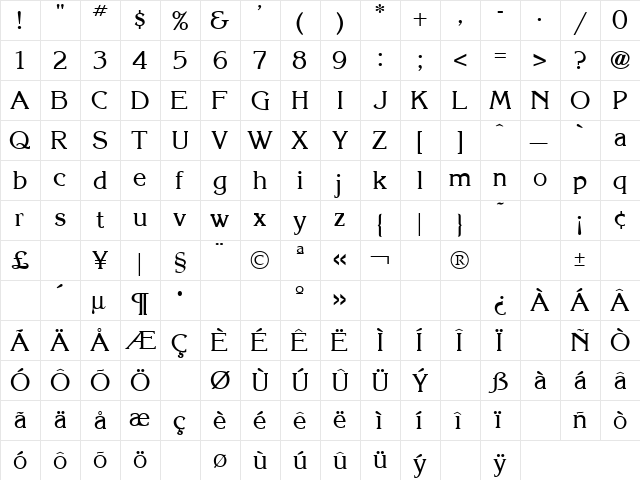
Moving Out 1 Regular
Design Context for Moving Out 1 Typeface
Moving Out 1 takes a measured approach to typography — its balanced proportions and neutral character make it a reliable workhorse for both digital and print work.